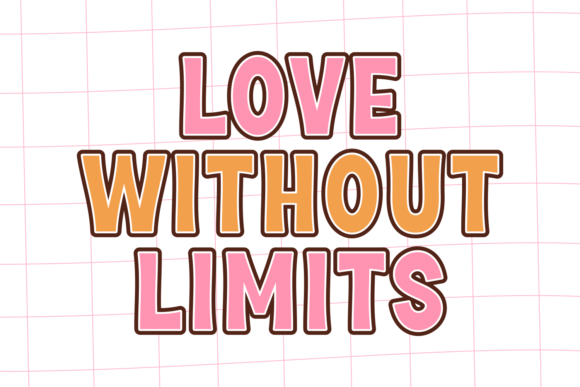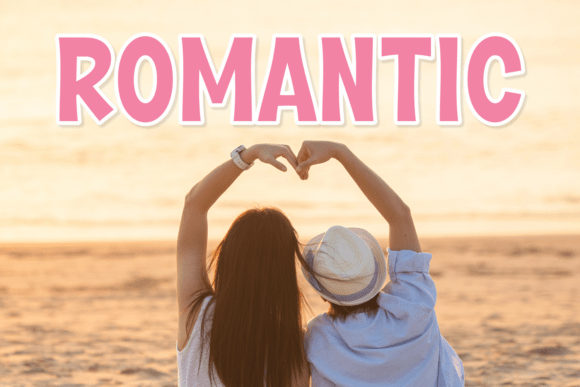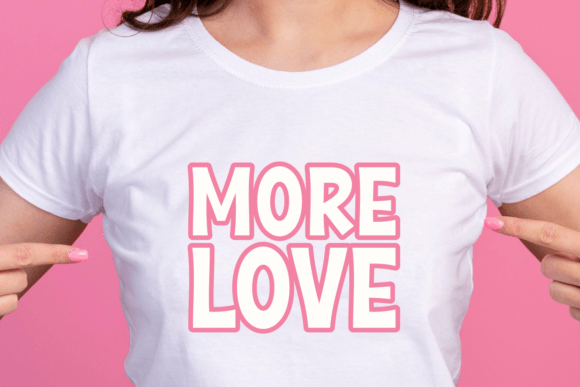
The Ultimate Guide to Album Design Font: Adding Fun and Personality to Your Creative Projects
Have you ever been working on a design project, and suddenly, you’re stuck on finding the perfect font? I recall a particularly frustrating experience while designing a Valentine’s Day card for a client. I wanted a font that was playful, yet elegant; fun, yet sophisticated. After hours of searching, I stumbled upon Album Design Font, and it instantly became the perfect fit. In this article, we’ll dive into the world of Album Design Font, exploring its features, uses, and everything in between.
What is Album Design Font?
Album Design Font is a charming display typeface designed to add fun, warmth, and personality to any creative project. With its bold and smooth curves, this playful font delivers a cheerful and modern look that feels youthful and approachable. It’s an ideal choice for kids’ product packaging, Valentine’s cards, trendy fashion labels, love quotes, and social media designs that demand attention.
What I Love About Album Design Font ✨
• ✅ Unique and Playful Design: Album Design Font stands out from the crowd with its distinctive, hand-crafted look that’s perfect for making a statement.
• ✅ Versatility: This font is incredibly versatile and can be used for a wide range of projects, from kids’ products to fashion labels.
• ✅ Easy to Read: Despite its playful nature, Album Design Font remains easy to read, even at smaller sizes.
• ✅ OpenType Features: The font comes with a range of OpenType features, including glyphs and stylistic alternates, allowing for endless creative possibilities.
• ⚠️ Limited Use in Formal Contexts: Due to its playful nature, Album Design Font might not be the best choice for formal or professional projects.
• ⚠️ Legibility at Small Sizes: While generally easy to read, Album Design Font can become a bit tricky to read at very small sizes.
Album Design Font was created with the intention of bringing fun and personality to design projects. Inspired by the world of children’s books and playful fashion, this font is designed to evoke a sense of youthfulness and approachability.
Q: What is Album Design Font best suited for?
A: Album Design Font is ideal for kids’ product packaging, Valentine’s cards, trendy fashion labels, love quotes, and social media designs that demand attention.
Q: Is Album Design Font easy to read?
A: Yes, Album Design Font is generally easy to read, even at smaller sizes. However, legibility may decrease at very small sizes.